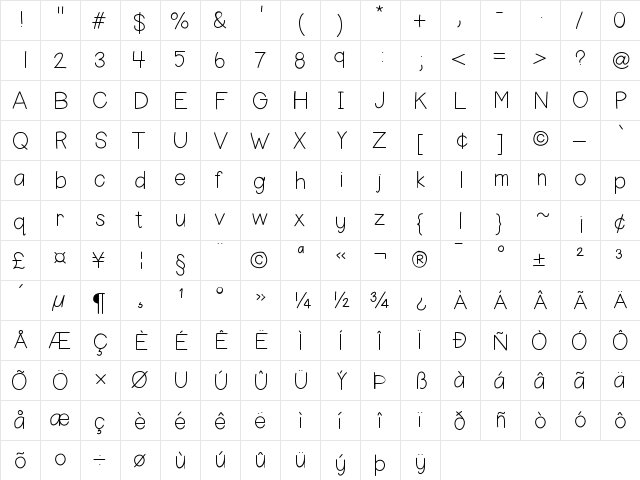
HelloHappy Medium
HelloHappy takes a measured approach to typography — its balanced proportions and neutral character make it a reliable workhorse for both digital and print work.